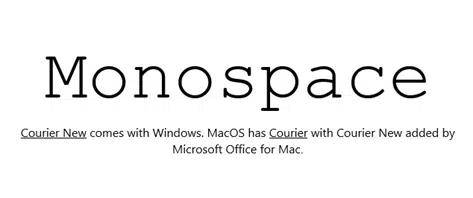
Typography 101 – font terms explained
Font vs typeface, ascender, desender, X-height, finial … there’s a nice one-page guide to all the Typography terminology.
Become a typography nerd in under 10 minutes by Andrew Coyle
Has a good visual summary of all the major words used talking about type – the broad categories of fonts (Serif, San-serif etc), how letters combine (kerning) to the words describing parts of a character (ascender, finial, bowl etc).
The only extra we could add is mentioning monospace fonts like Courier New
Monospace or fixed fonts use the same horizontal space for each letter, just like manual typewriters. Fixed fonts are useful for code snippets and other situations where you want each character to be very clear and distinct – like passwords.